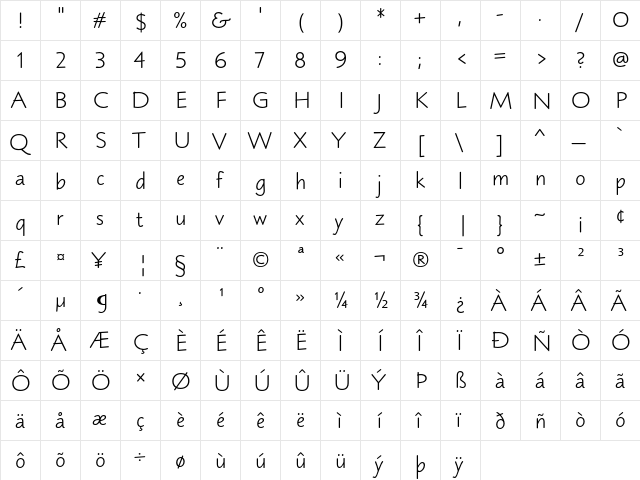
Blueprint MT Regular
Design Context for Blueprint MT Typeface
Blueprint MT takes a measured approach to typography — its balanced proportions and neutral character make it a reliable workhorse for both digital and print work.